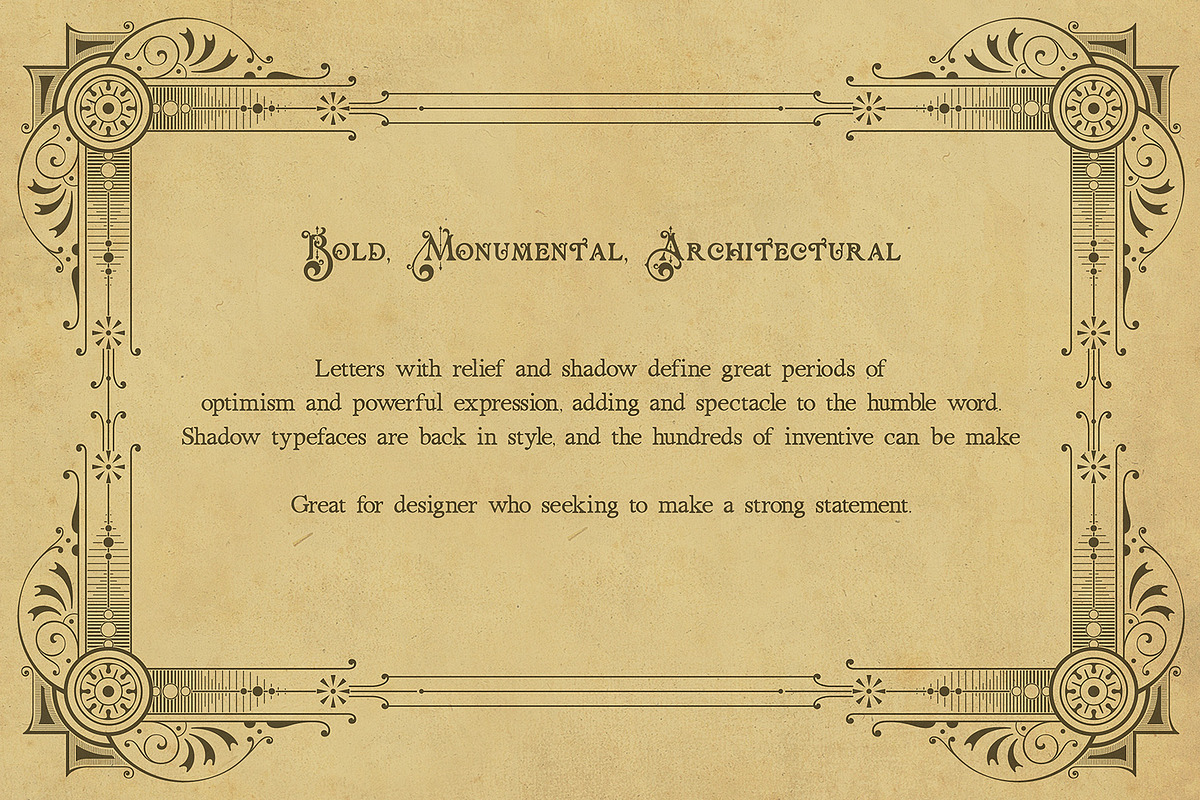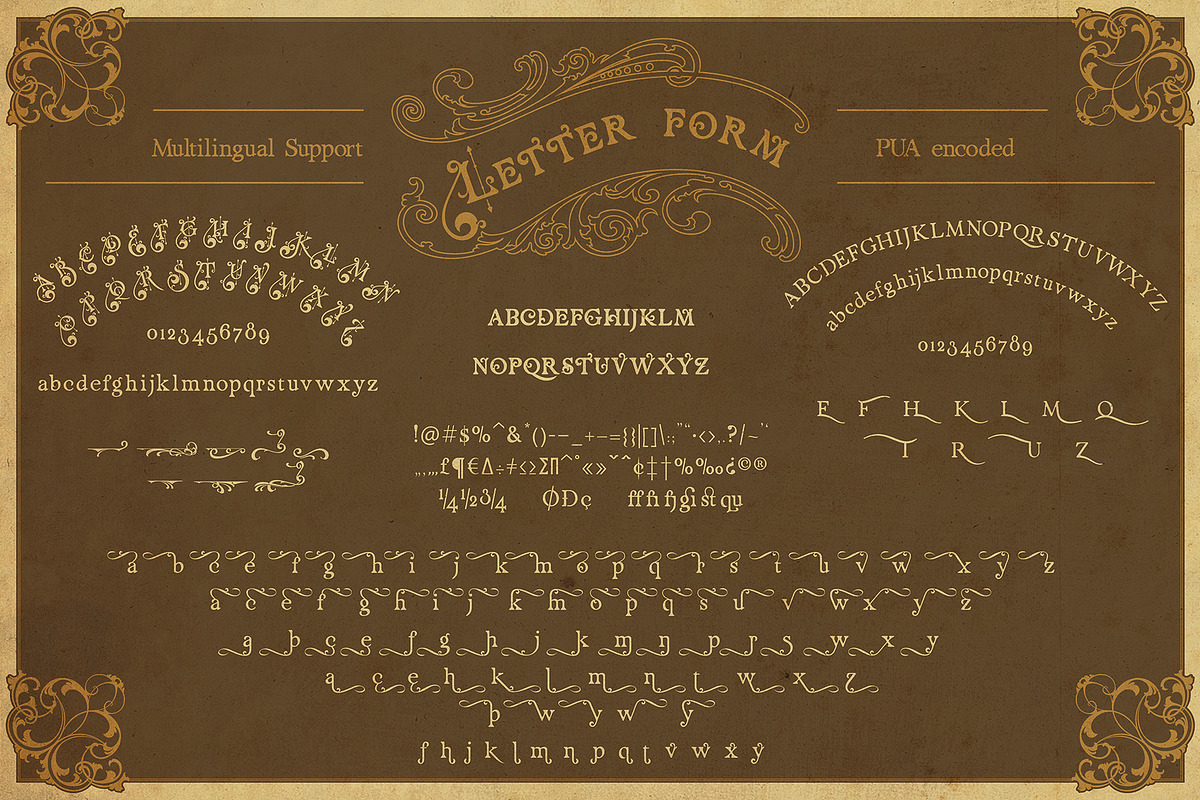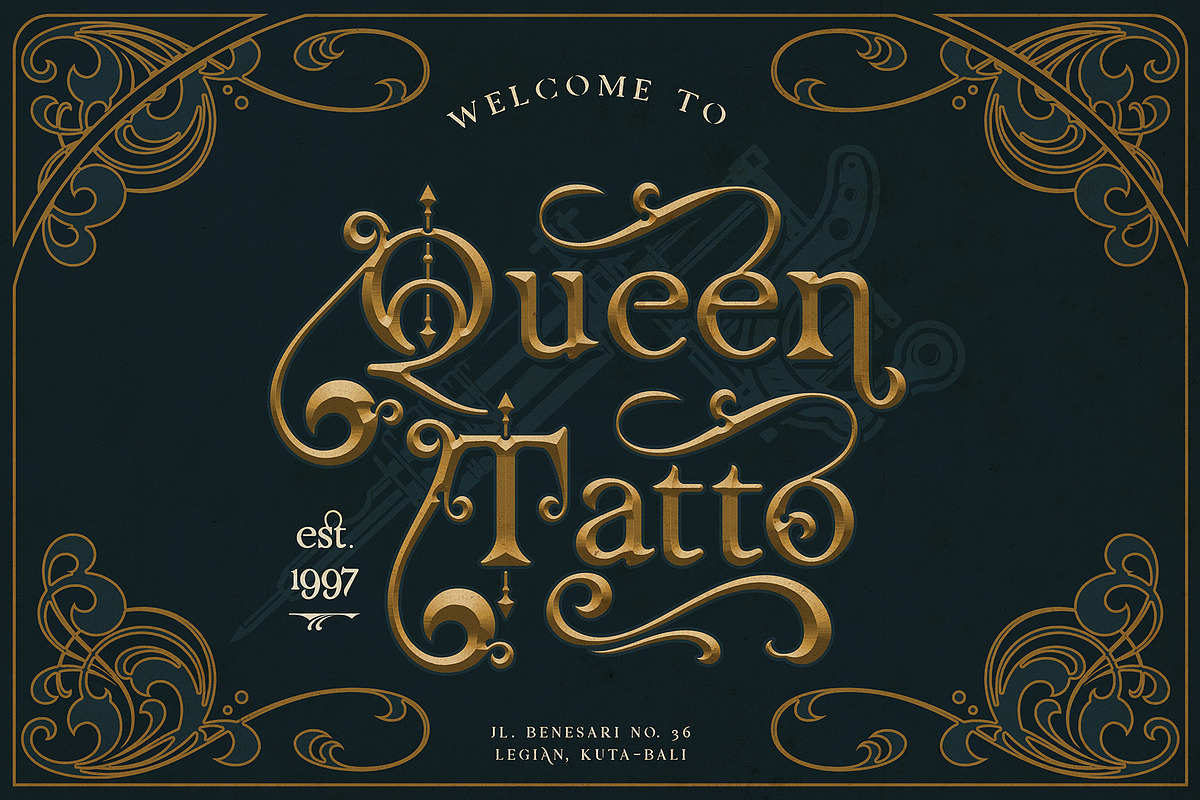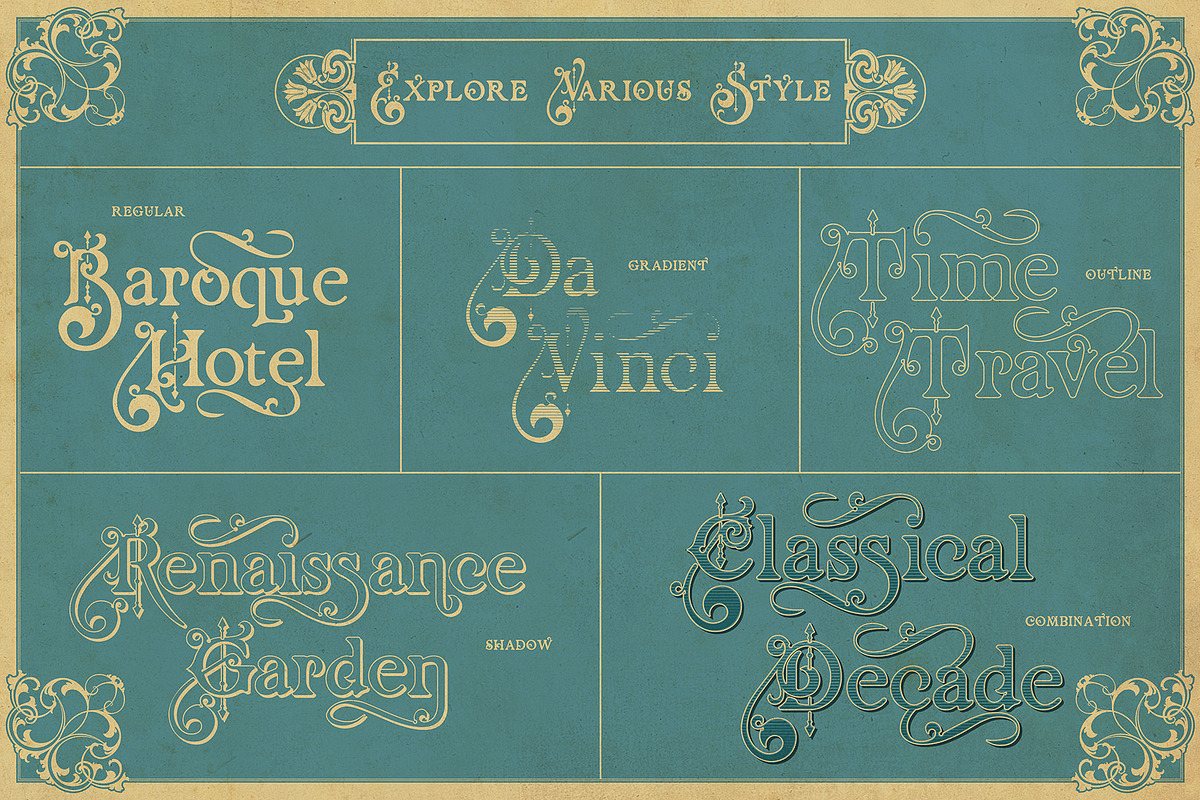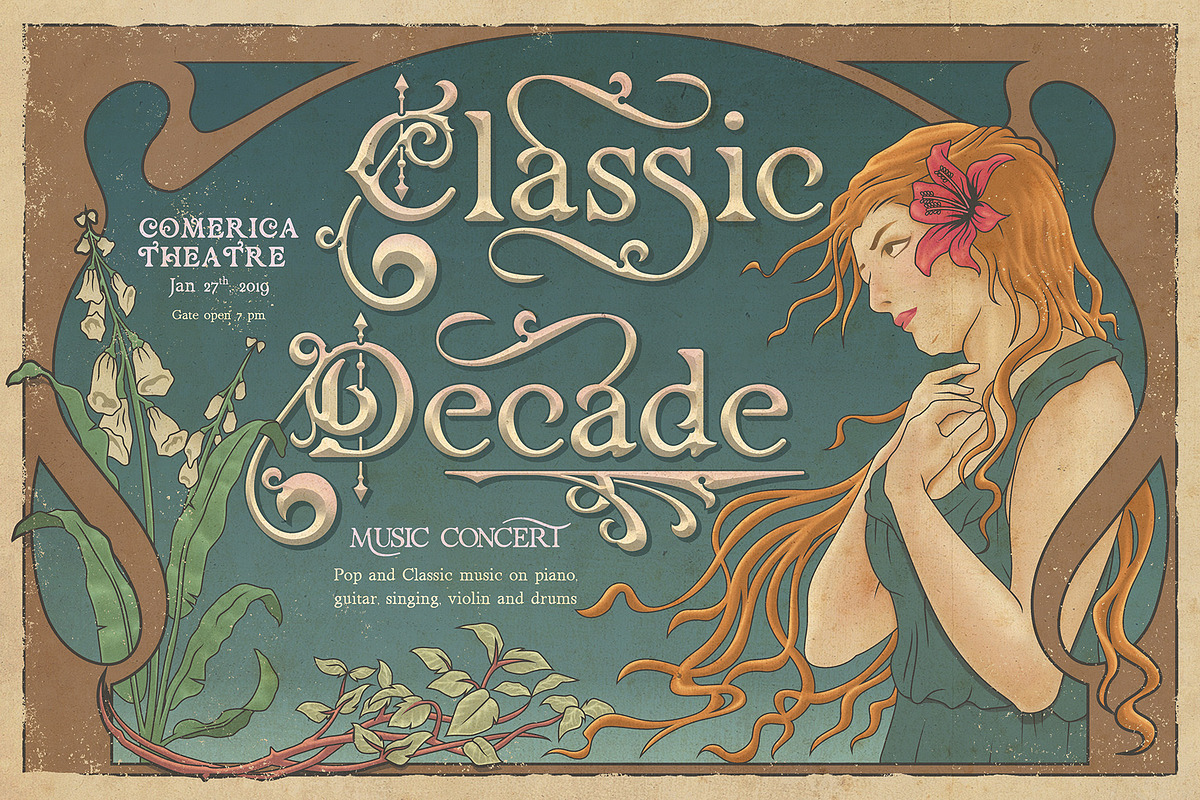
Renaissance Garden - Layered font
Make sure you give an artistic typography on your design with "Renaissance Garden" layered font family. Easy to use and great for making logo, vintage design, t-shirt, shop-sign,etc.
By the late 19th century, the trompe l'oeil, a fashionable decorative conceit in Baroque era been adopted by typographers---not because it still in vogue, but it because sign painters and printers realized that volumetric letters both fooled and stimulated people's perceptions. As a result, many early French types were as ornate as the architecture that influenced them. Ornate three-dimensional letters is everywhere at that decade.
Total 600+ glyphs was crafted inside Renaissance Garden, Some OpenType Features also added to classical layered font.
Multilingual Support and PUA Encoded
- The Features includes: Stylistic Alternates, Swashes & Ligatures.